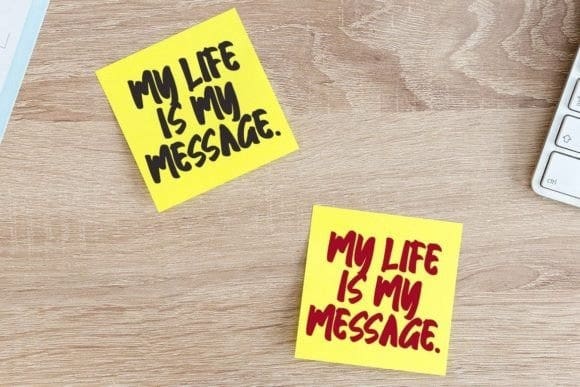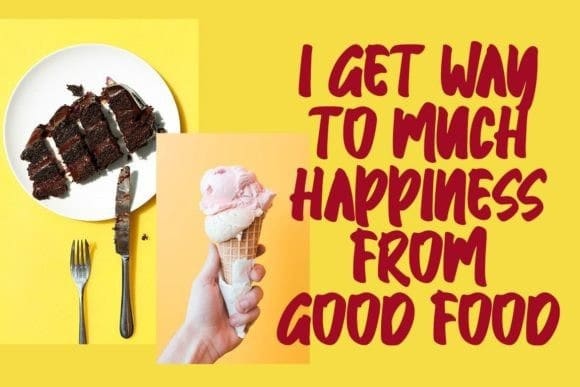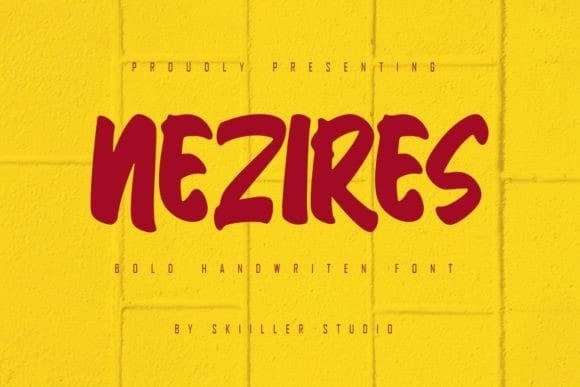
Nezires Brush Font
Nezires Brush Font is a bold handwritten font that looks beautiful on a variety of designs requiring a personalized style such as wedding invitations, thank you cards, weddings, greeting cards, logos, and so on.